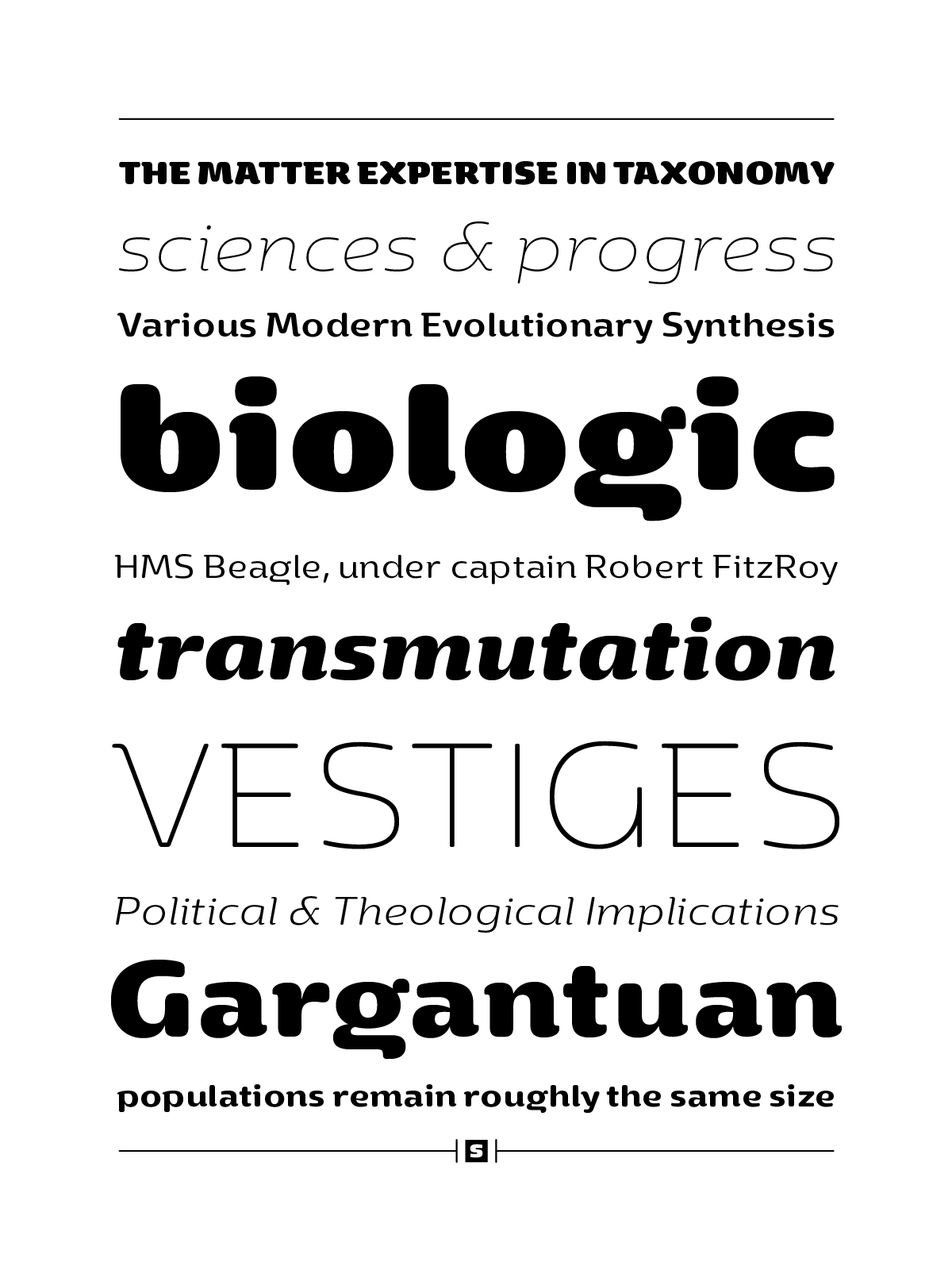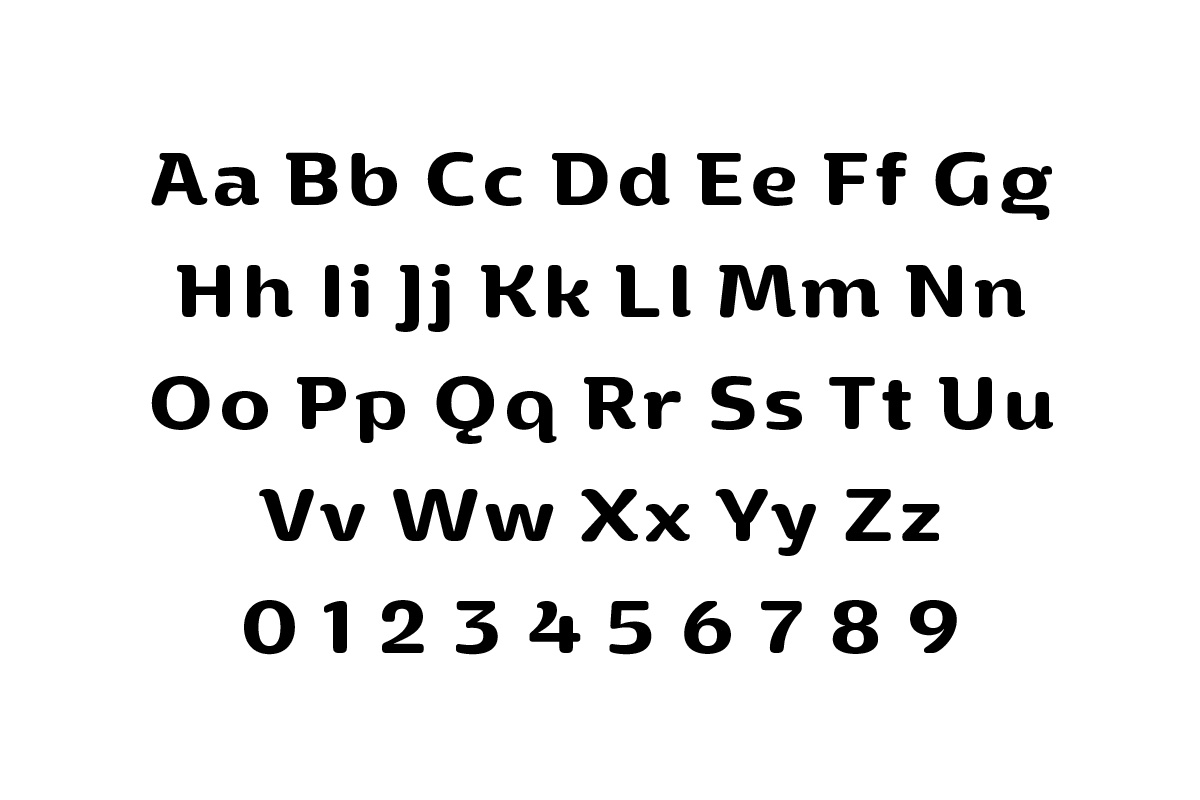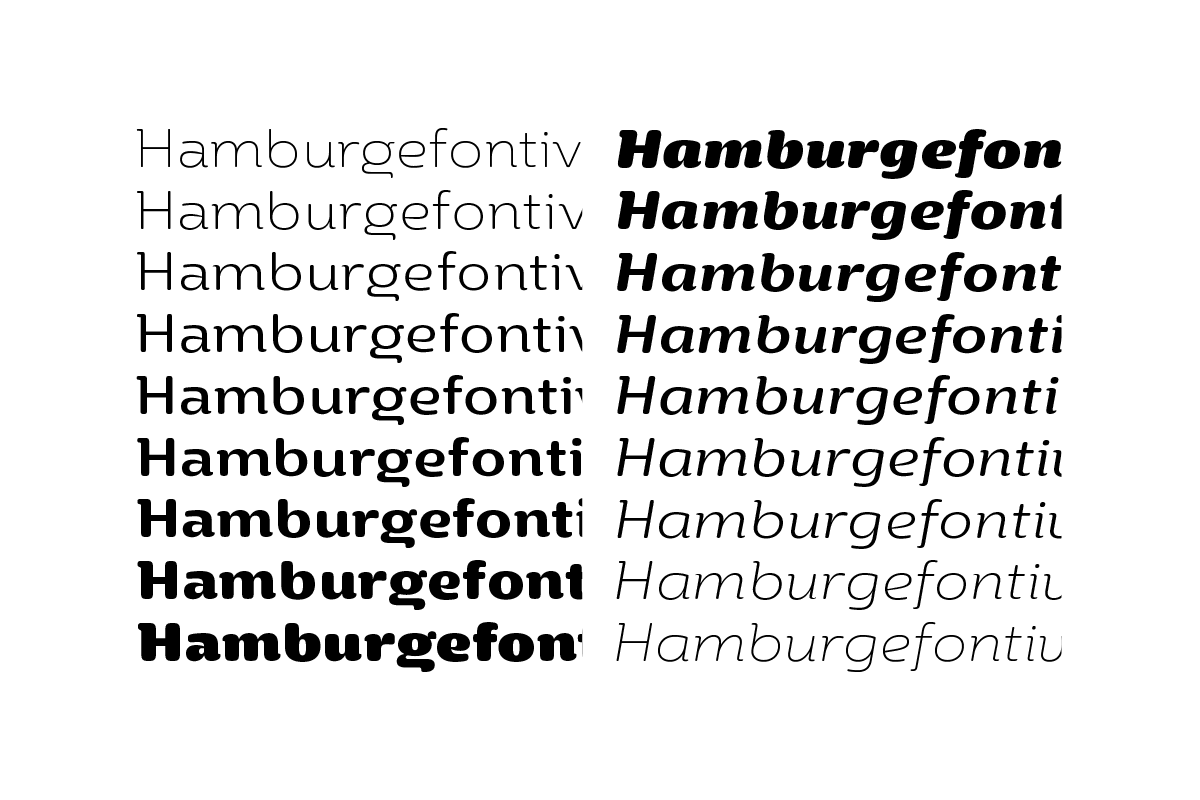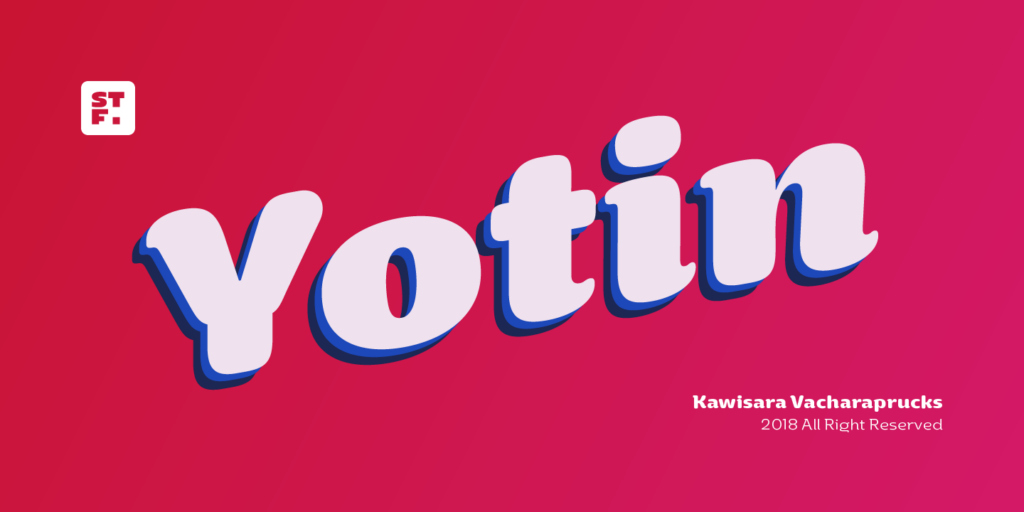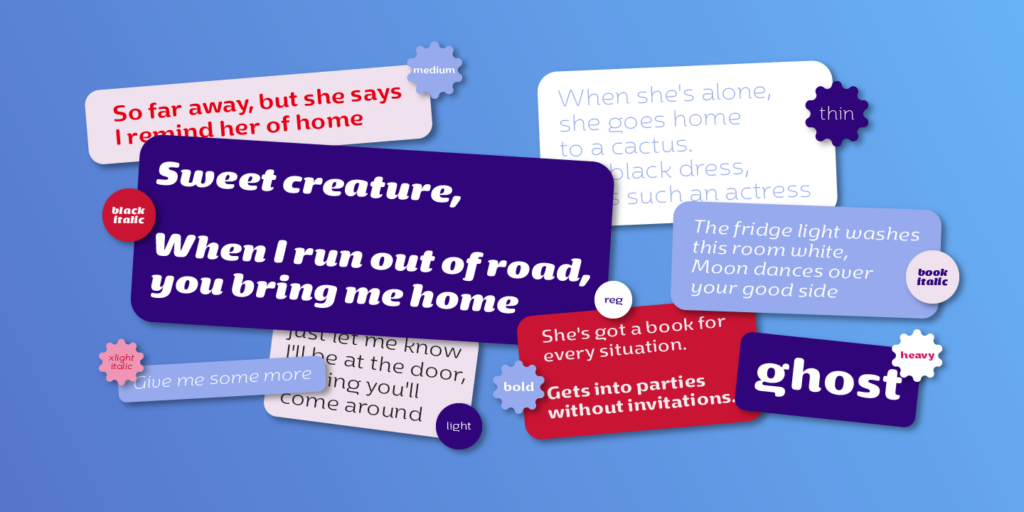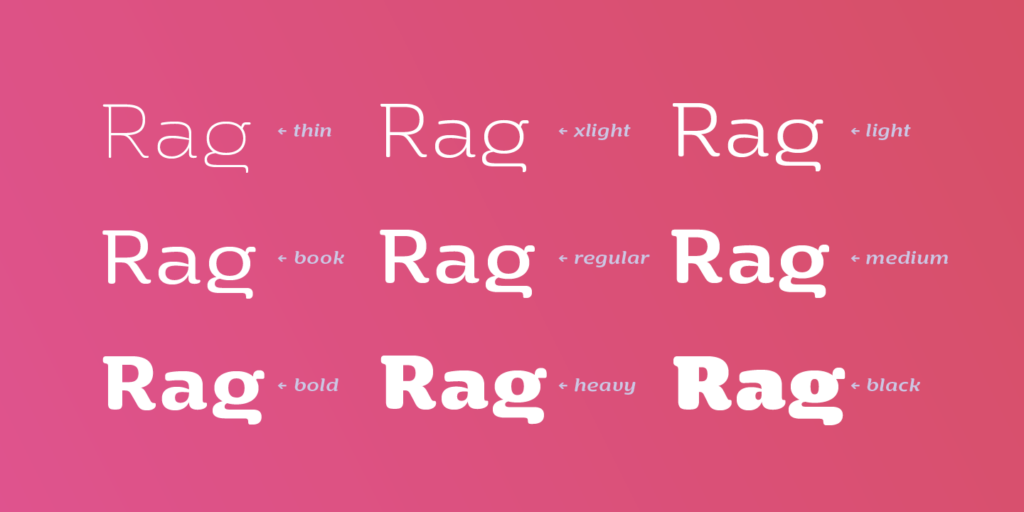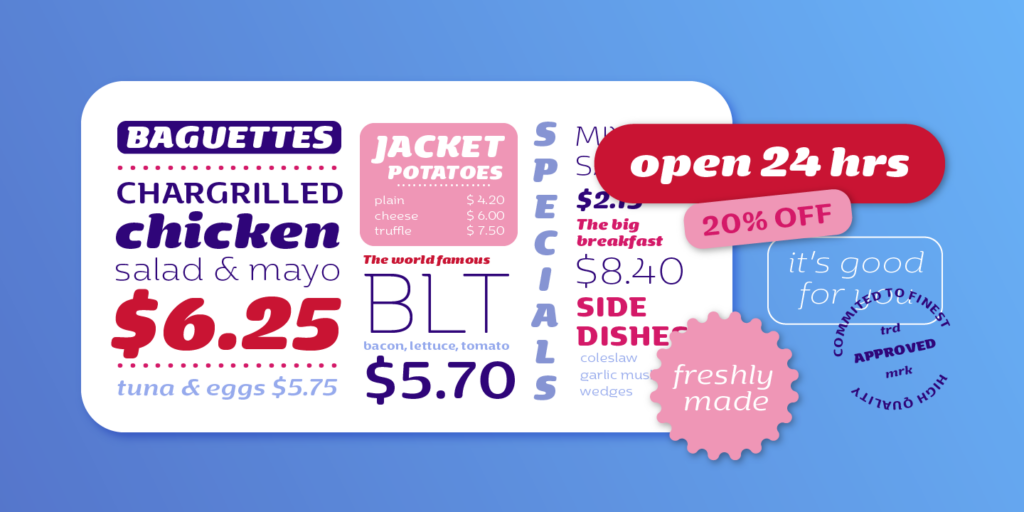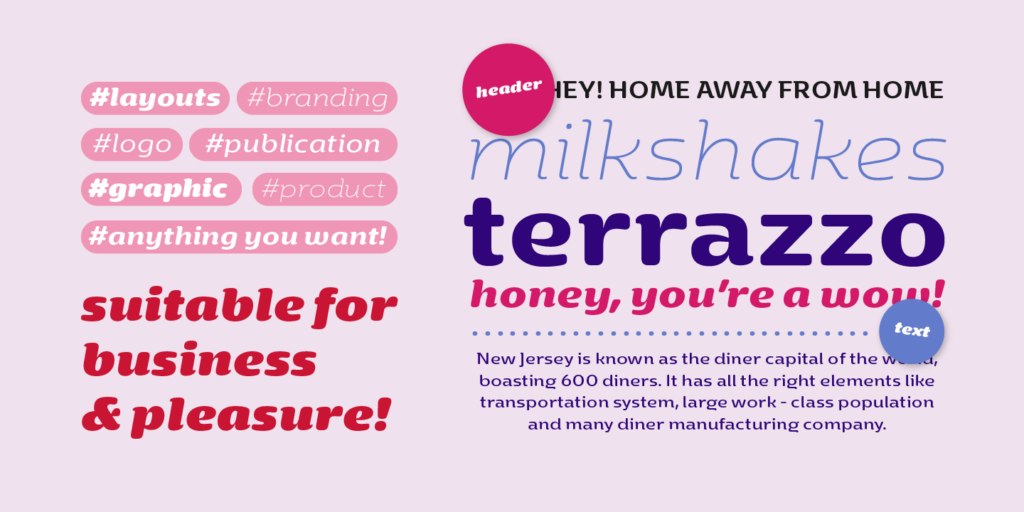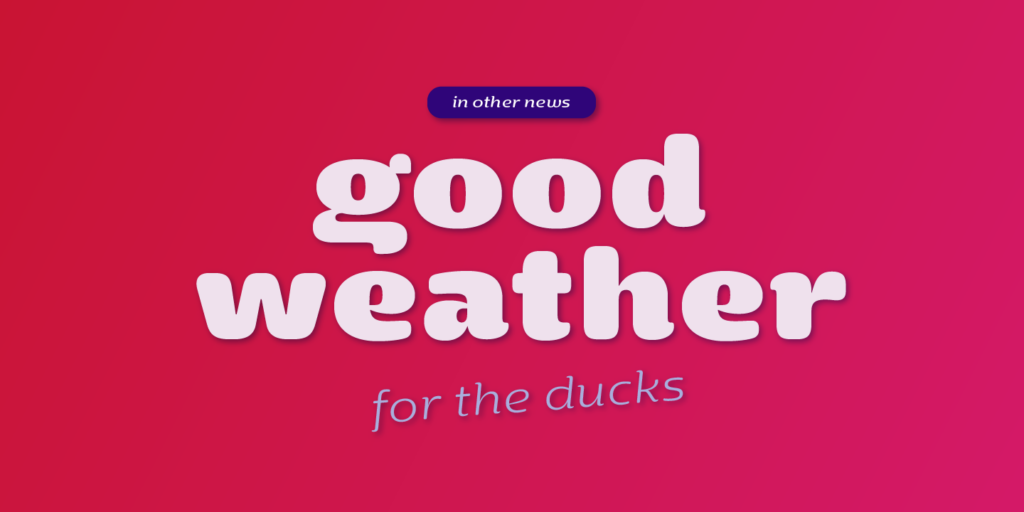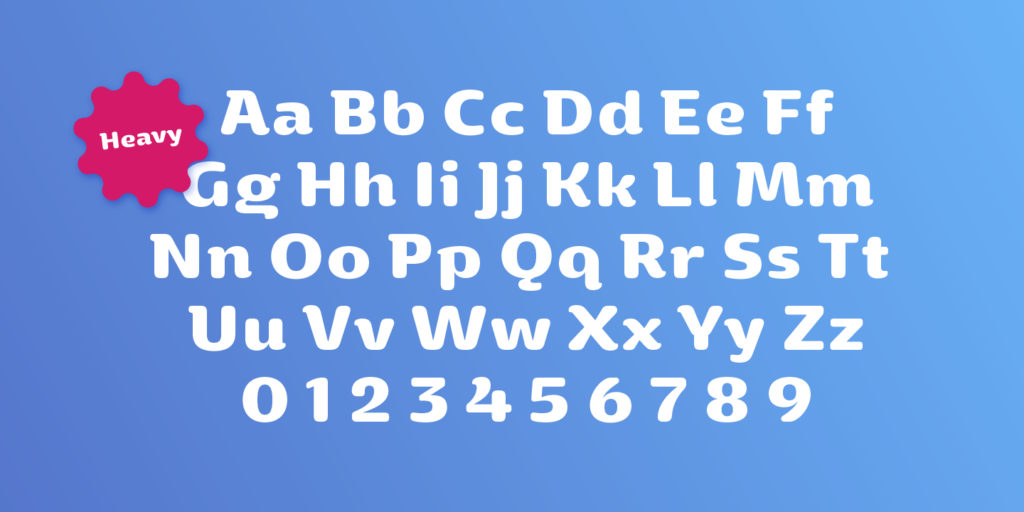
Yotin — STAWIX Foundry
Yotin is a retail font by STAWIX Foundry, available as a Thai and Latin typeface for branding, digital use, variable font workflows, and contemporary แบบอักษรไทย licensing.
Its rounded structure makes branding feel approachable and refined.
Designer
Stawix Ruecha
OpenType Features
aalt, case, dlig, dnom, hist, liga, numr, sinf, subs, sups, tnum
About
Yotin is a contemporary half-serif inspired by summer days vibe. Vibrant, round with a little bit of contrast makes the design of Yotin unique, friendly and flexible at the same time, suitable for text, headlines, display and other design needs such as layouts, branding and anything in between. Yotin is here to serve your creativities. Yotin comes in 9 weights from Thin to Black, each equipped with Italic plus many OpenType features; tabular numerals, inferiors & superiors, numerators & denominators, fractions, ligatures etc.